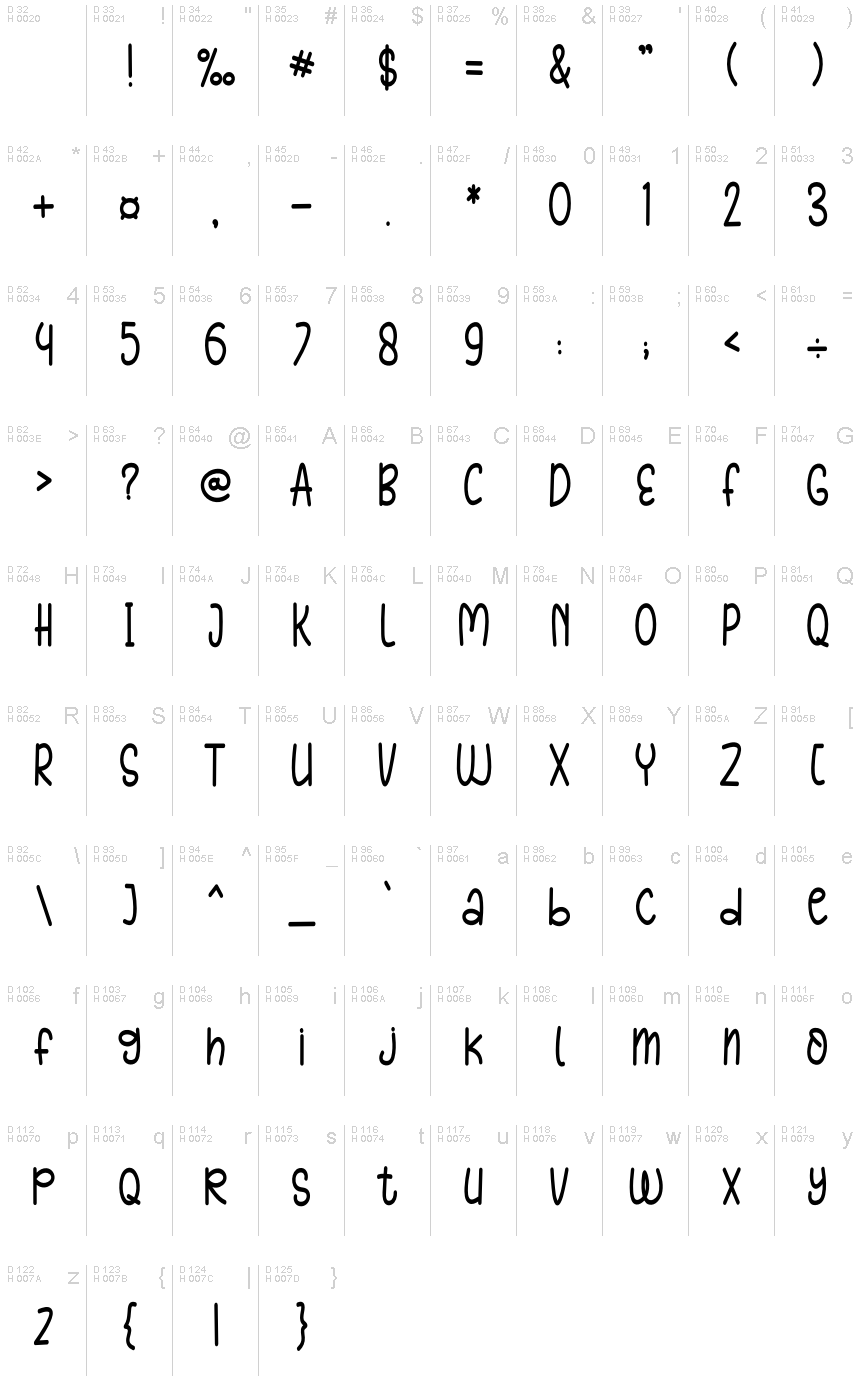
Hello Love
Hello Love, designed by Etik Fatimah, is a handwritten font that exudes a unique blend of intimacy and elegance. Its semi-light weight and condensed width create a delicate yet assertive presence on the page, making it an excellent choice for heartfelt invitations, branded content, and personal correspondence. The aesthetic appeal of Hello Love lies in its organic flow and subtle charm—a testament to the artistry of Fatimah's design.
This font's style captures the essence of handwritten expression with a contemporary twist. It stands out for its ability to impart a personal touch to various creative projects while maintaining readability and sophistication. Whether for wedding stationery, boutique branding, or editorial design, Hello Love offers designers a versatile tool that brings warmth and character to any medium.